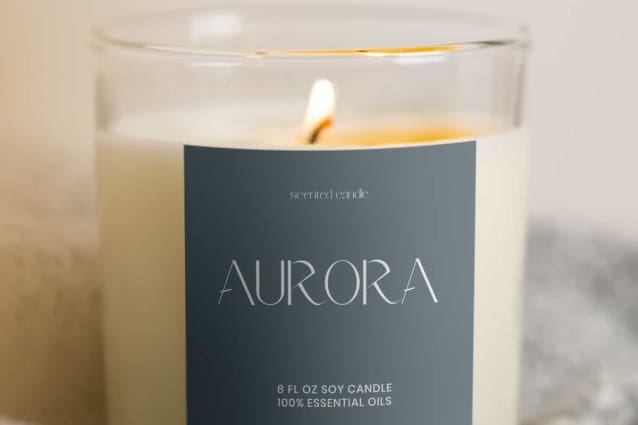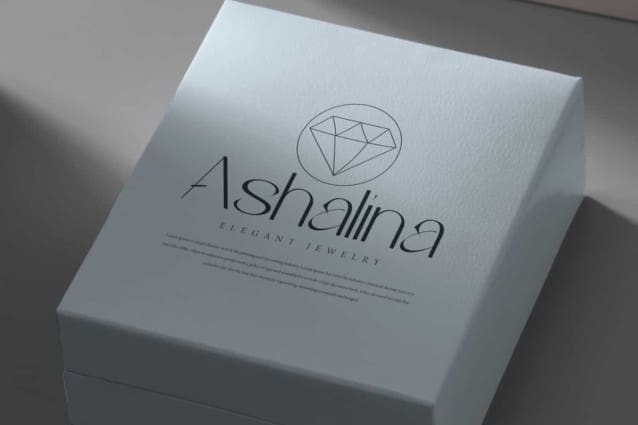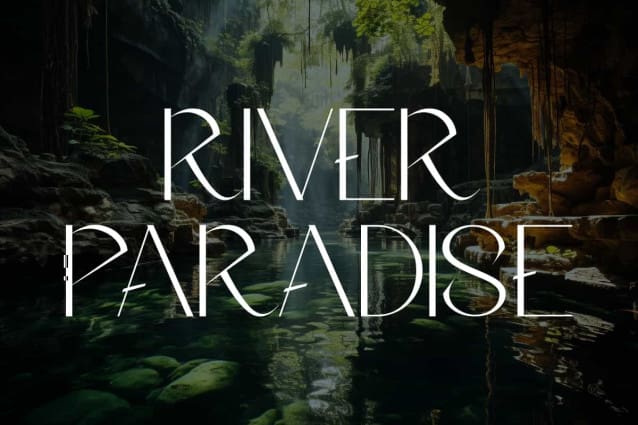
River Paradise Font
River Paradise Font is a modern sophisticated sans serif display font that has exclusive look. This font exudes a tough and charming aura through the line shapes that all its letters have. It would be perfect for any projects, such as advertising, blog, brand image, gift box, invitation card, label, layout design, quotes, signage, template designing purposes, websites and more.
River Paradise Font includes full set of Uppercase and Lowercase Basic Characters, Numerals, Punctuation, and Symbol. It’s a gorgeous sans serif typeface that will adds a stunning touch. It’s perfect for accessories and jewelry, cosmetic, event or wedding organizer, fashion, florist, furniture, real estate, skincare, spa salon, etc.